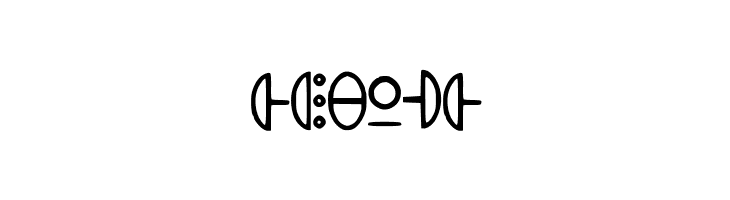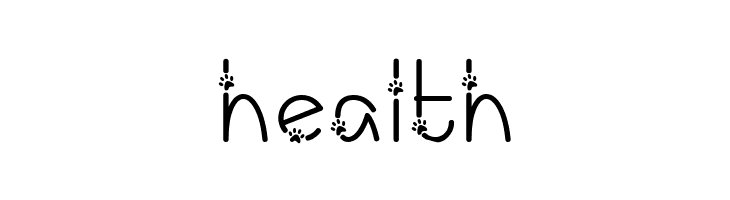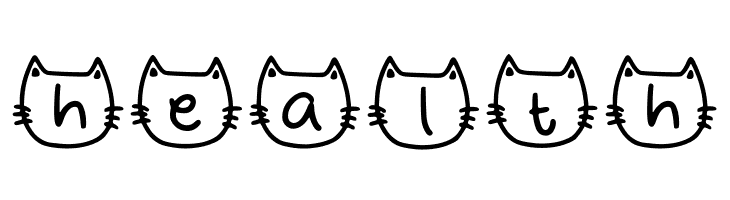
A playful, cat-themed font with whimsical elements and bold, friendly characters.
A decorative and abstract font with geometric and futuristic elements.
A playful sans-serif font with paw print embellishments on each character.
A playful font with characters enclosed in cat face outlines, ideal for fun and whimsical projects.